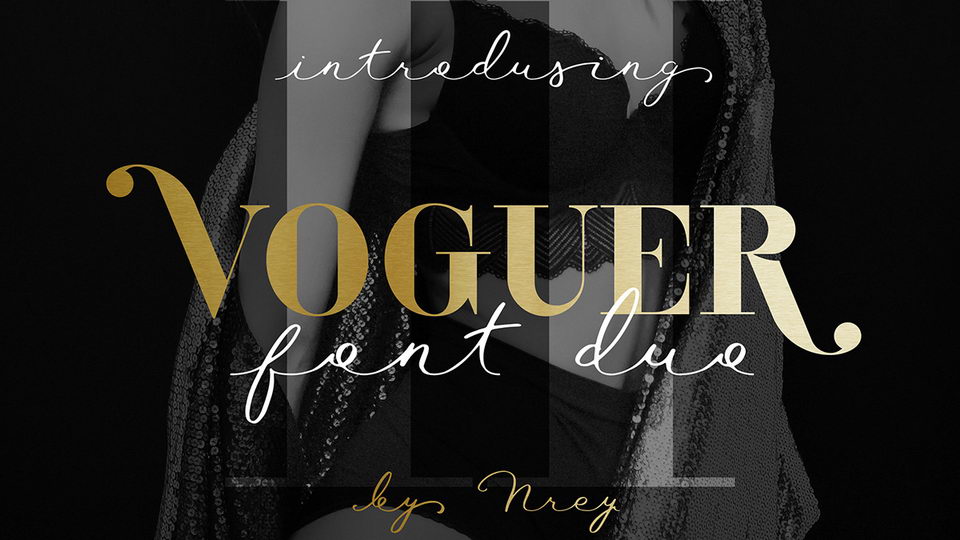
Voguer Font
Voguer font is a modern and elegant high-contrast serif, inspired by the fashion glossy magazines typography. It perfectly represents modern & vintage esthetics. Full version featured by serif font including handwritten signature script.  Free version of the Voguer font has only basic latin and numerals. The font is perfect for wedding elegant invitation cards, beauty and fashion package design.